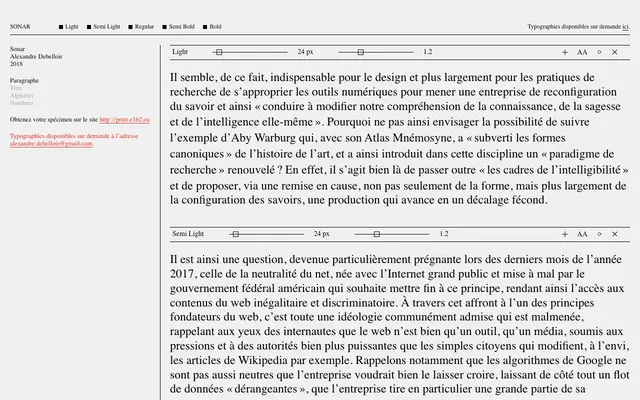
Sonar
E162 · Alexandre Debelloir · 2018
A five-weight humanist sans-serif designed by Alexandre Debelloir in 2018, available through the French studio E162 on request.
Designed by Alexandre Debelloir and released in 2018 under the E162 foundry, Sonar covers 269 characters across five weights from Light to Bold. The character set is modest and Latin-only, suited to French-language editorial and text work. It is distributed on request rather than through a conventional retail channel.
Sonar presents as a clean, upright sans-serif with a humanist character, offered in five weights that suggest optical refinement and readability-focused design rather than geometric or grotesque traditions.